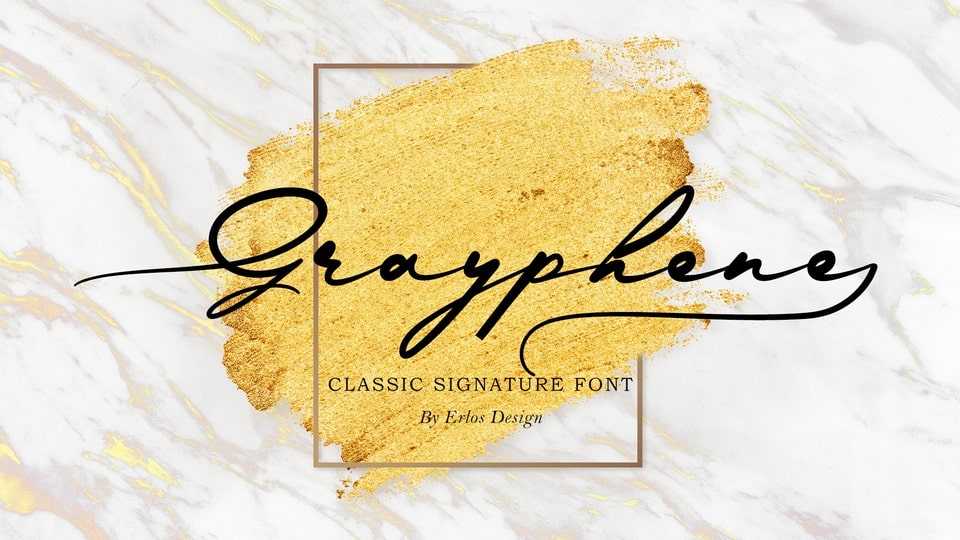
Download Grayphene font, a modern calligraphy typeface with handwritten, sophisticated flows. Grayphene font has a smooth texture, so it would be perfect for your design, branding, wedding invites, and cards.